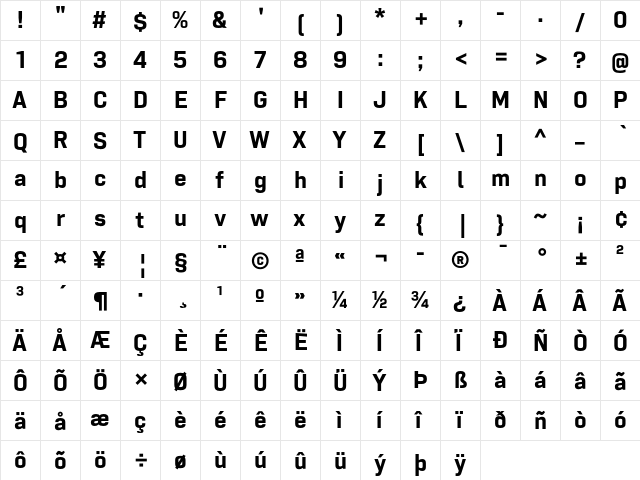
Tamba Sans Demo Bold
| Foundry | Dharma Type |
| Designer | Ryoichi Tsunekawa |
Design Context for Tamba Sans Demo Typeface
Tamba Sans Demo offers clean, dependable letterforms without strong stylistic allegiance, making it a practical choice for designers who need flexibility. Its bold stroke weight gives it real presence on the page.